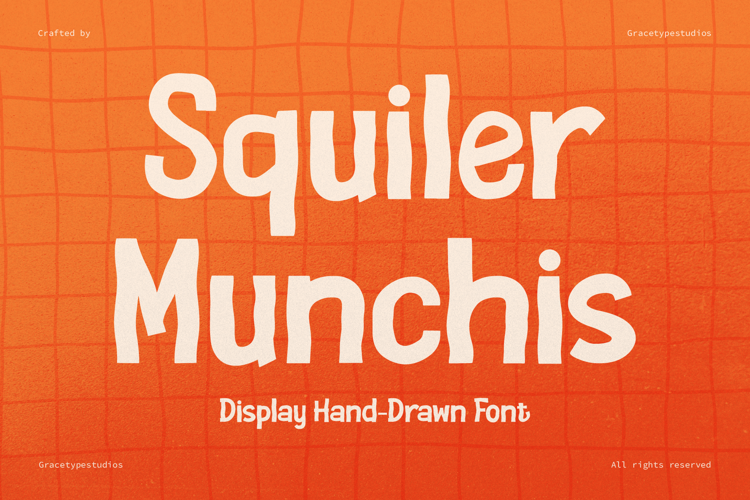
Squiler Munchis Font
Squiler Munchis | Display Hand Drawn, is suitable for any projects such as: logos, branding projects, homeware designs, product packaging, mugs, quotes, posters, shopping bags, t-shirts, book covers, name card, invitation cards, greeting cards, label, photography, watermark, special events, and all your other lovely projects that need a Hand Drawn Font taste.